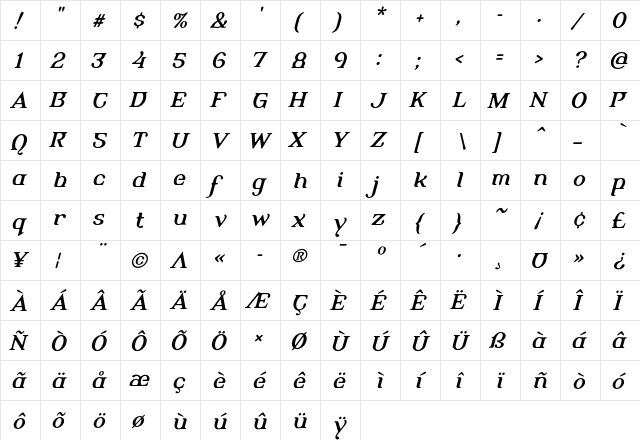
AlembicBeta-RegularItalicOne Regular
Design Context for AlembicBeta-RegularItalicOne Typeface
AlembicBeta-RegularItalicOne offers clean, dependable letterforms without strong stylistic allegiance, making it a practical choice for designers who need flexibility. Its italic angle brings a sense of urgency and motion to the letterforms.
Pro Tip: Try AlembicBeta-RegularItalicOne for annotation and caption copy alongside an upright companion — the contrast in angle creates a dynamic but ordered typographic system.